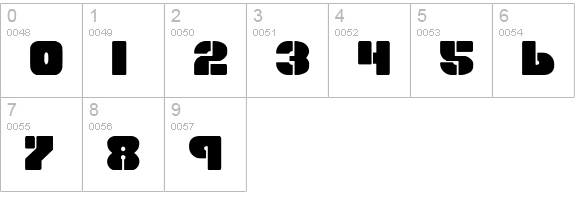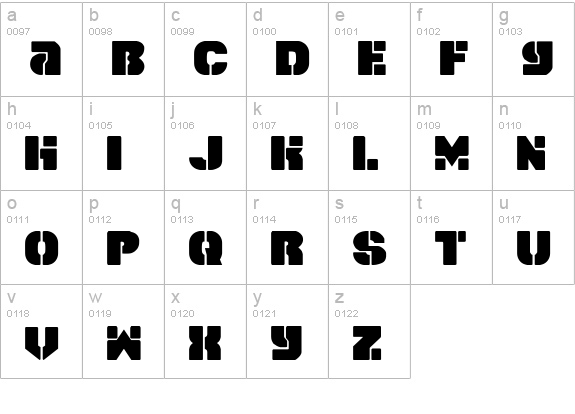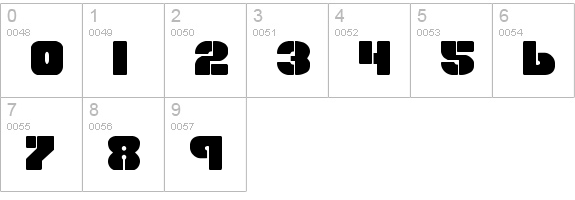
Space Cruiser Font Details
Introducing Space Cruiser, a stunning font that will transport you to the outer reaches of the galaxy and beyond. With its sleek and futuristic design, this font captures the essence of space exploration and cosmic adventures. Space Cruiser is not only visually captivating, but it also offers a seamless reading experience. The carefully crafted letterforms are clean, legible, and distinct, making it perfect for a wide range of creative projects. Whether you're designing a sci-fi book cover, creating a futuristic logo, or crafting a captivating poster, Space Cruiser will elevate your designs to new heights. One of the most exciting aspects of Space Cruiser is that it is available for free! That's right, this incredible font can be freely downloaded at FontsMarket.com. This means that you can unleash your creativity without breaking the bank. No longer do you have to compromise on quality or settle for generic fonts when you can have the extraordinary Space Cruiser at your disposal. In addition to its stunning aesthetics and accessibility, Space Cruiser also offers a variety of weights and styles, allowing you to experiment and customize your designs to perfection. Whether you prefer a bold and impactful look or a more subtle and elegant touch, Space Cruiser has got you covered. So, buckle up and prepare for a journey into the unknown with Space Cruiser. This font is not just a typographic tool, but a gateway to endless possibilities and limitless creativity. Download it for free today at FontsMarket.com and let your imagination soar to new galaxies of design excellence.